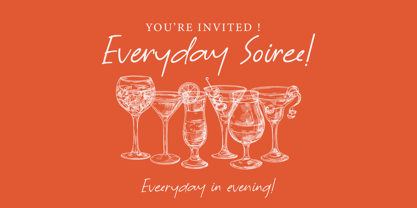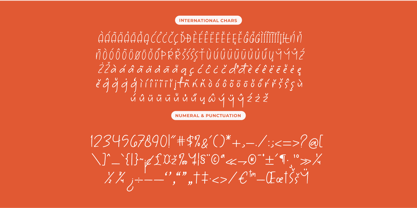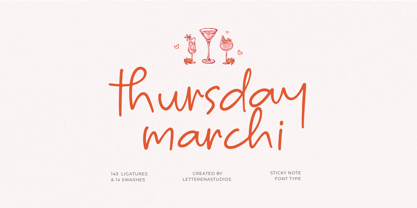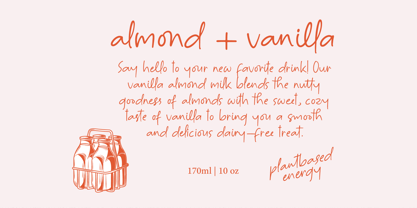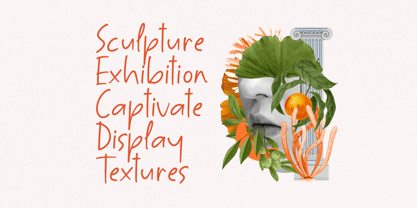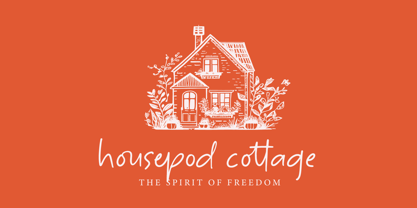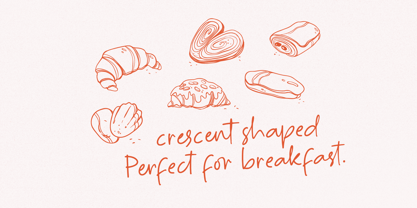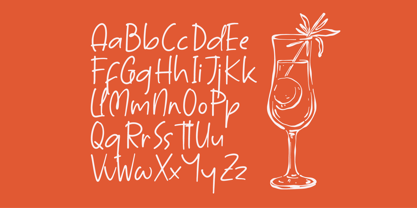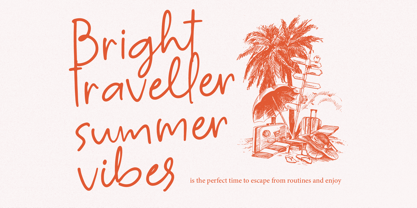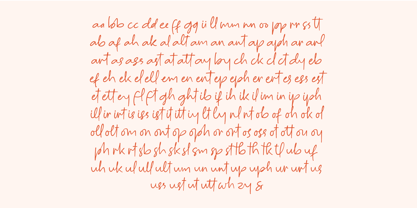
Thursday Marchi
The Thursday Marchi Font Family was designed by Heru Utama Putra and published by Letterena Studios. Thursday Marchi contains 2 styles and family package options. More about this family
Thursday Marchi - Sticky Note Font Type , from Letterena, is a Luxury Script font, suitable for any projects such as: logos, branding projects, homeware designs, product packaging, mugs, quotes, posters, shopping bags, t-shirts, book covers, name card, invitation cards, greeting cards, label, photography, watermark, special events, and all your other luxury and beautiful projects that need a Luxury Script taste.